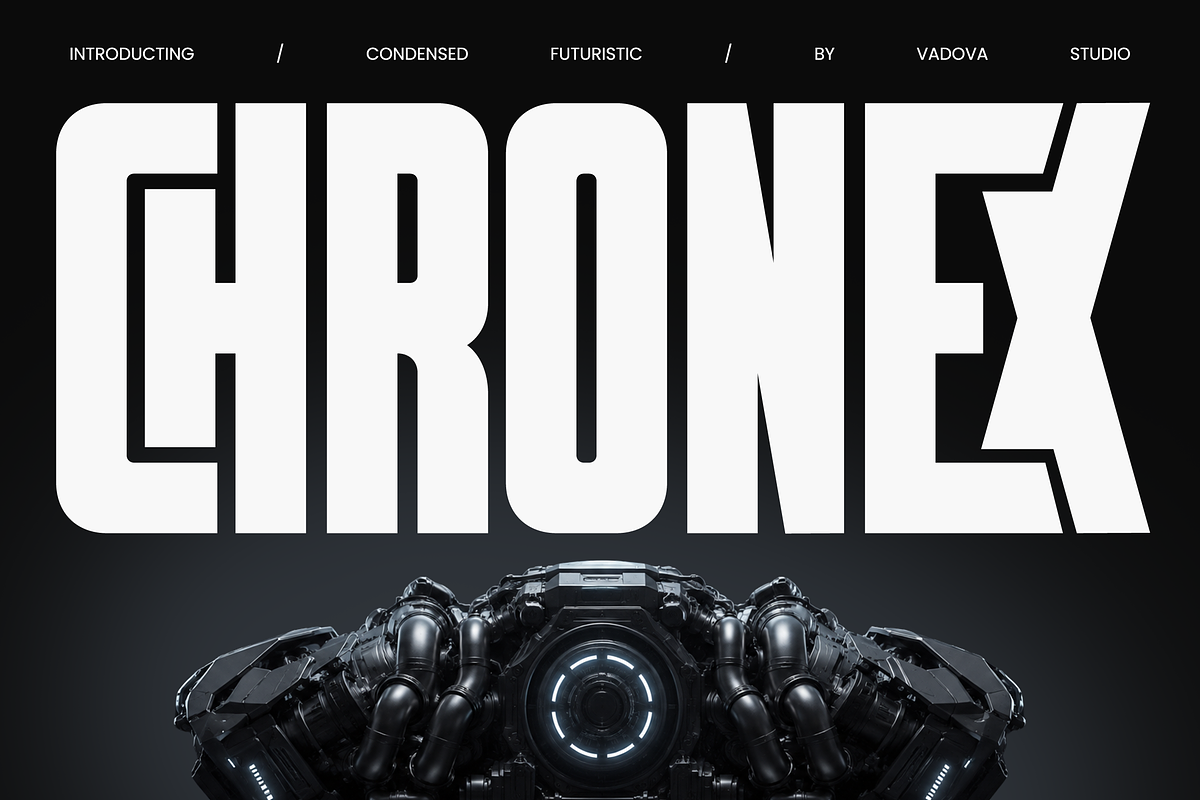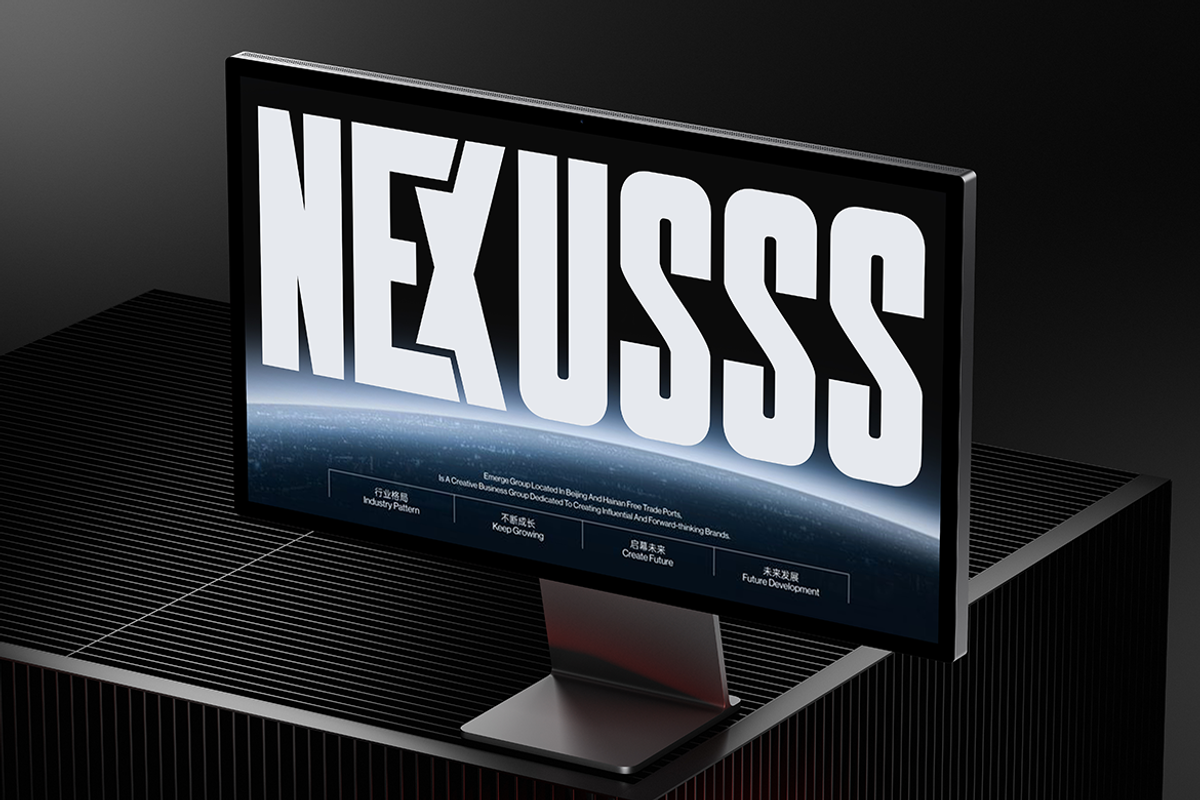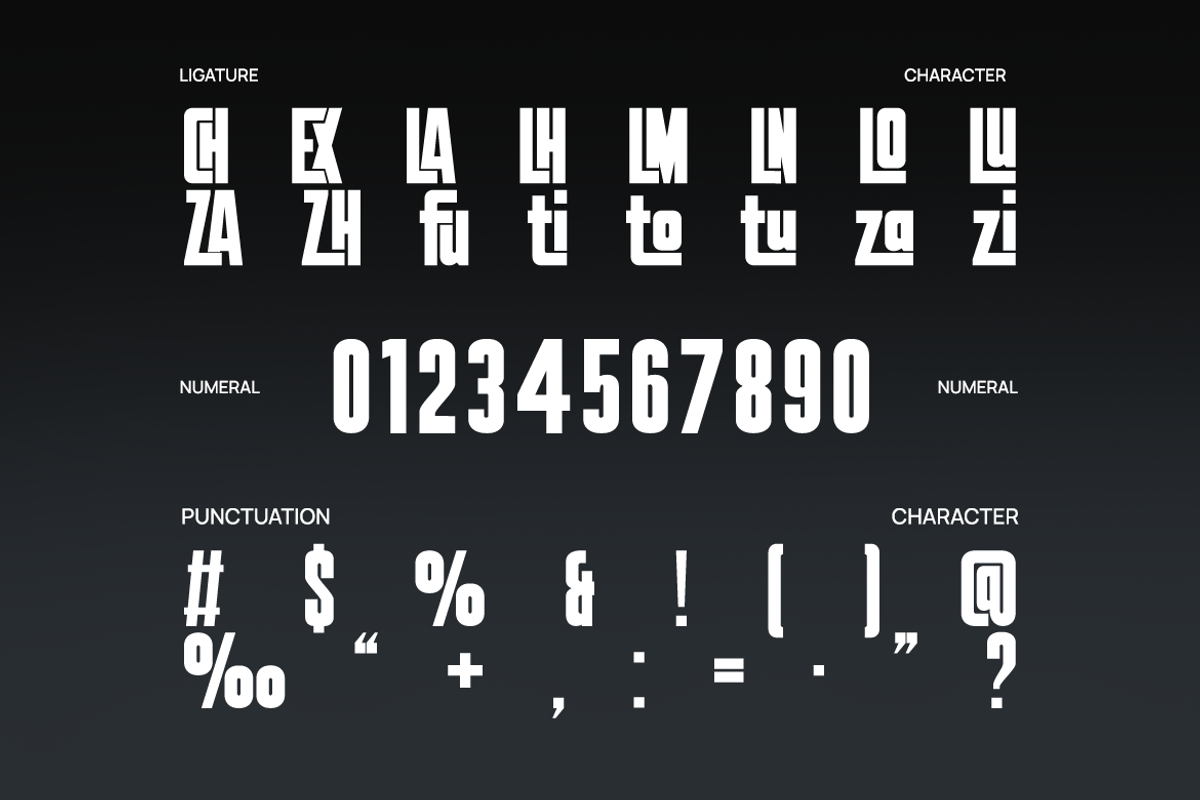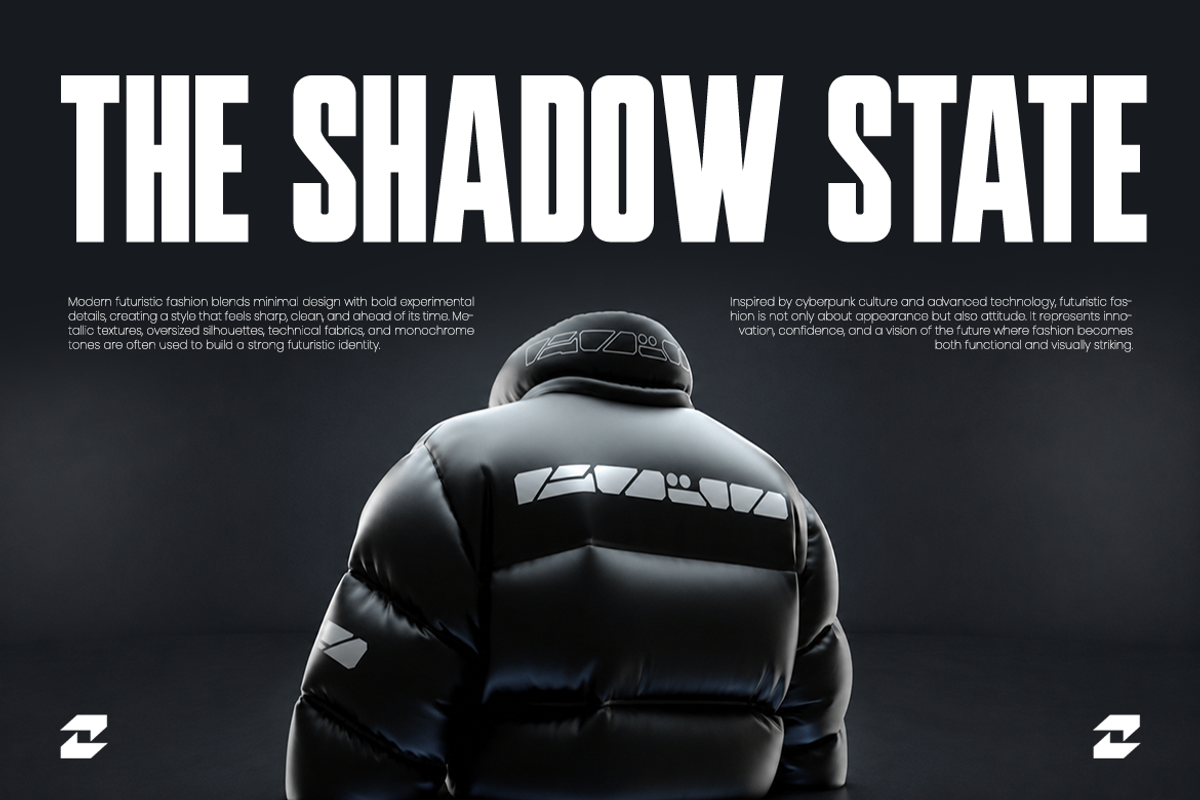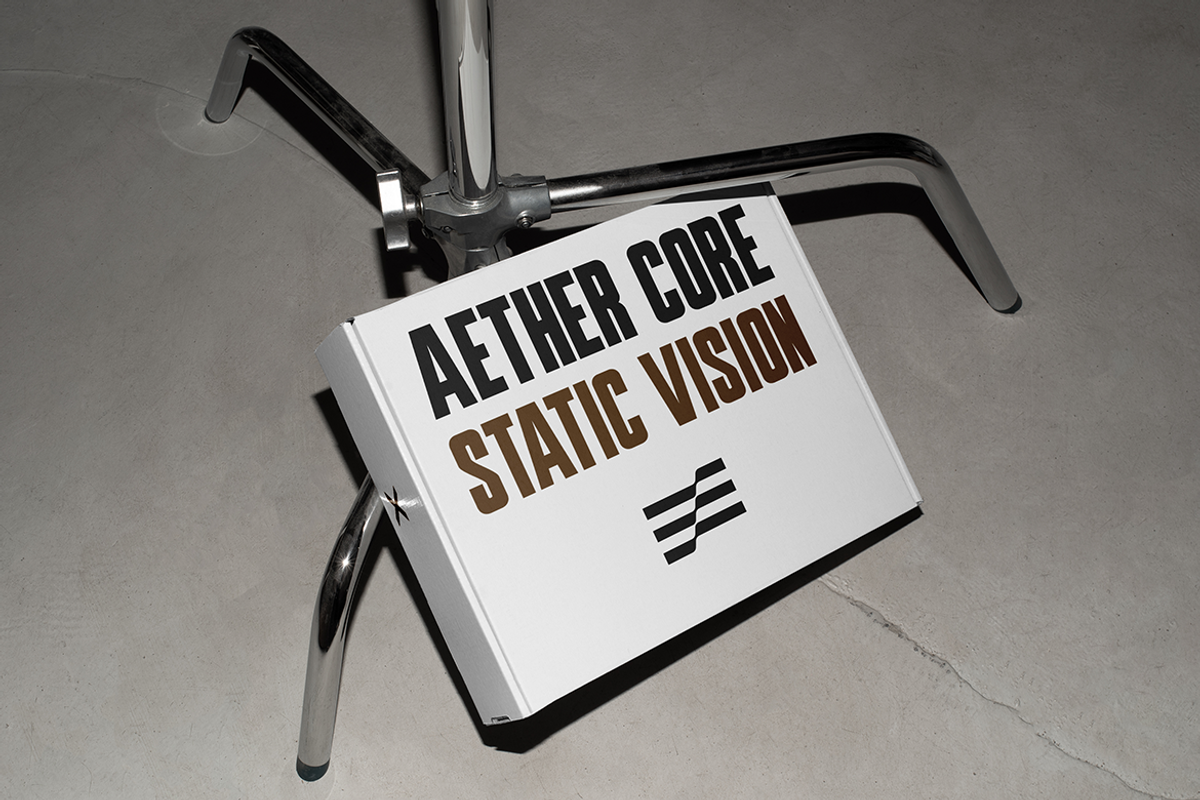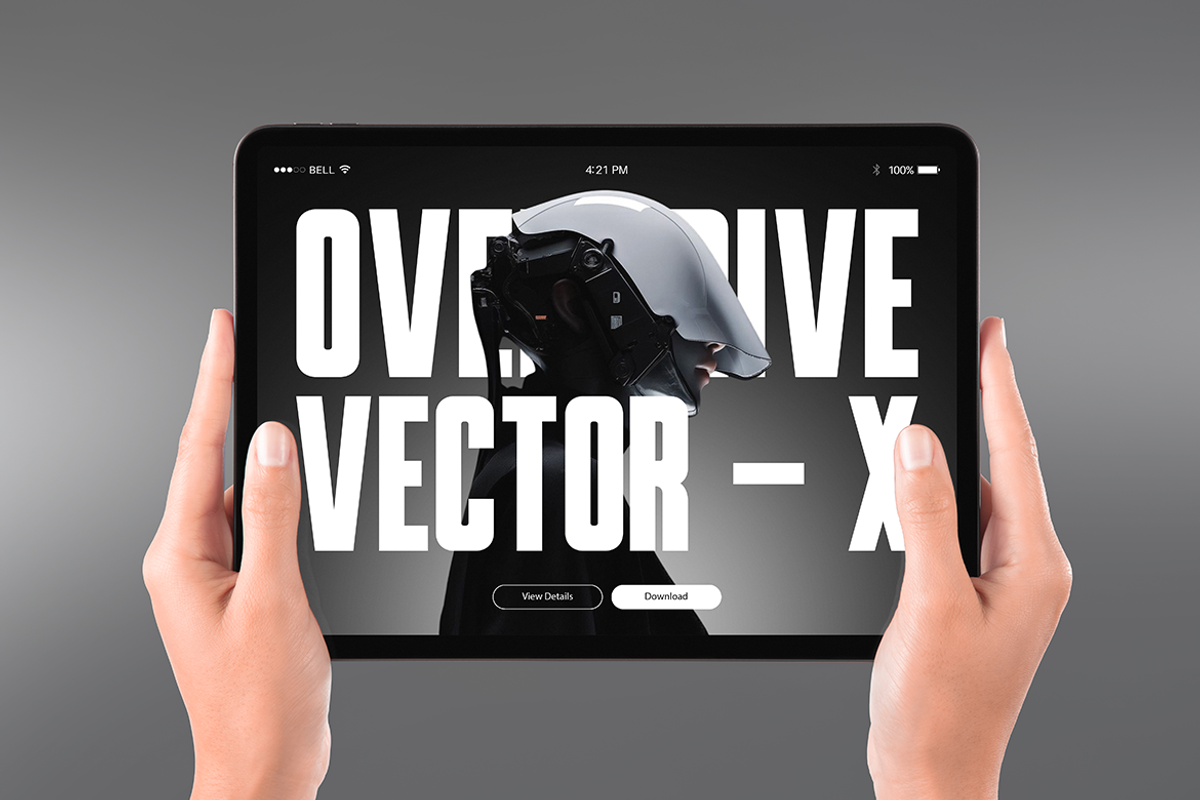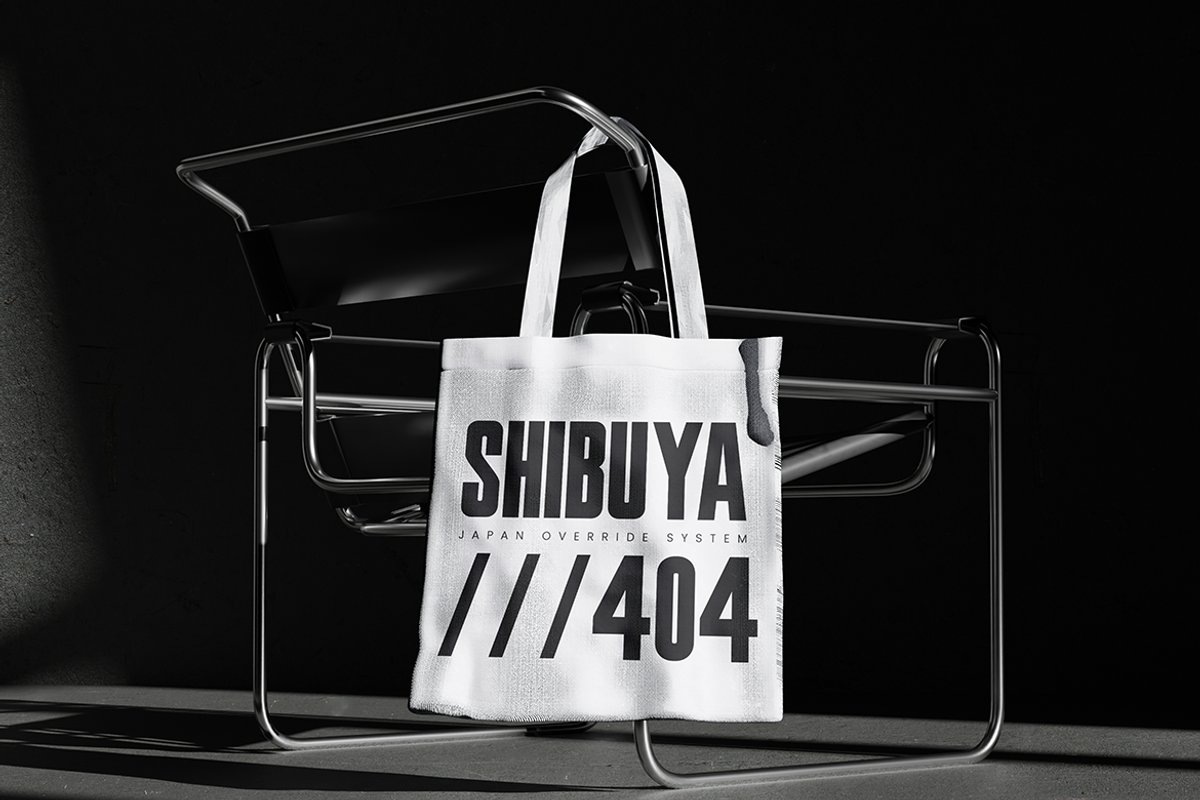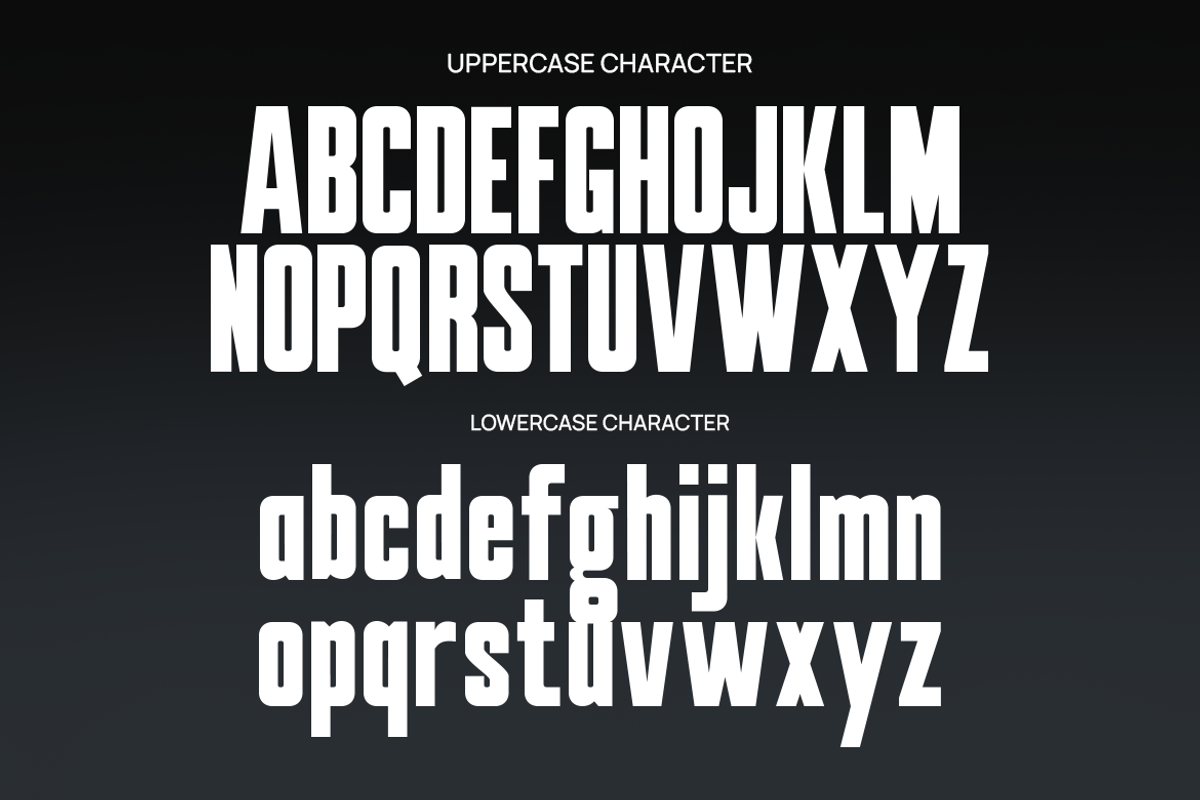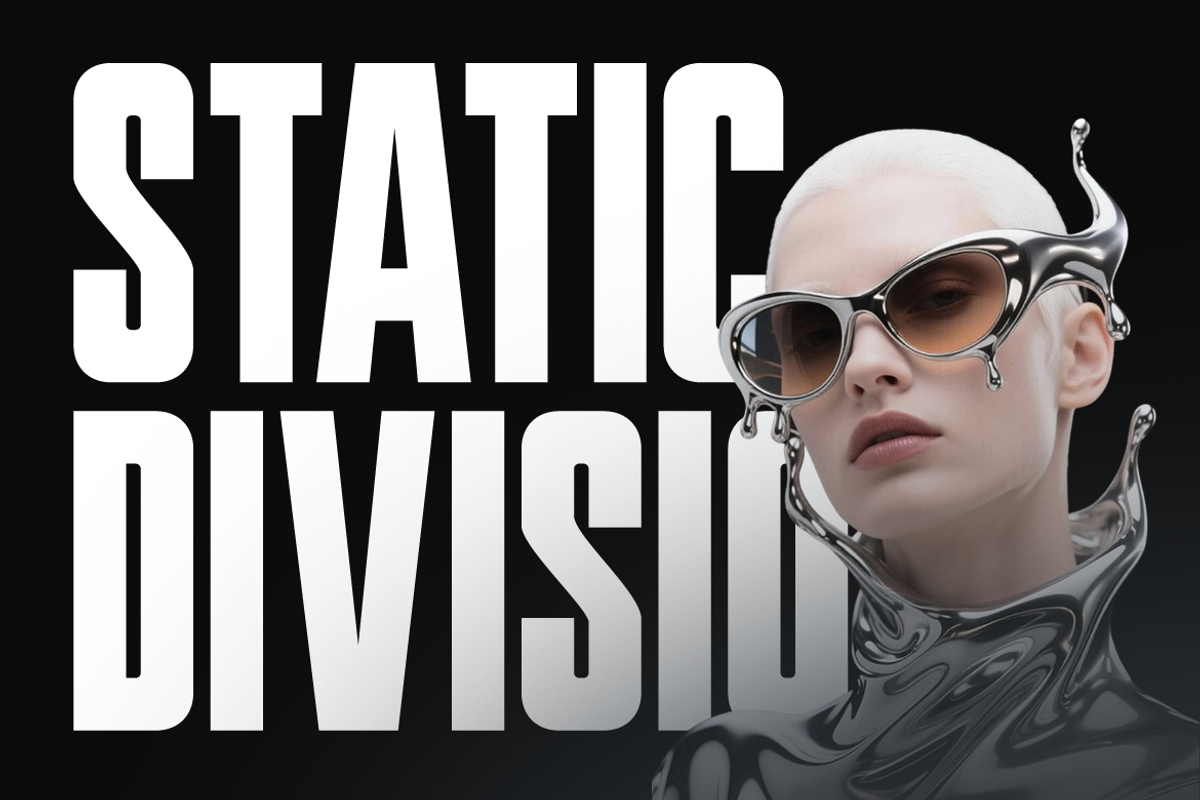
Chronex Condensed Futuristic Font
Chronex Condensed Futuristic Font presents a bold sci-fi inspired display typeface with ultra-condensed proportions, geometric construction, and powerful industrial aesthetics. The font includes uppercase and lowercase characters, numerals, punctuation, and futuristic stylistic details designed for strong visual impact across digital and print media. Its sharp edges, tall structure, and modern techno appearance create an aggressive and high-tech identity suitable for gaming, automotive branding, cyberpunk visuals, movie posters, esports graphics, and futuristic advertising layouts.
Relevance & Use Cases** **is highly relevant for futuristic branding, gaming visuals, esports promotions, cyberpunk posters, automotive campaigns, technology products, sci-fi movie graphics, and modern industrial design projects. Its condensed futuristic structure creates strong visual authority for logos, headlines, user interfaces, digital advertisements, streaming graphics, album covers, and promotional posters.
Ultra-condensed futuristic structure with tall, commanding proportions
Sharp geometric letterforms crafted for a bold sci-fi visual impact
High vertical emphasis creating strong presence in large display settings
Clean industrial edges with minimal curvature for a sleek technological feel
Distinctive angular cuts and stylized terminals adding cyber-inspired character
Futuristic brand identity systems for tech, AI, cyber, and digital products
Gaming titles, esports graphics, and sci-fi themed visual branding
Bold poster designs, cinematic titles, and entertainment marketing campaigns
UI/UX hero sections, app launches, and innovative technology presentations
Streetwear, sportswear, and fashion branding with a strong industrial aesthetic
Screen-optimized kerning for responsive web design
Supports numerals, punctuation, and extensive symbol set